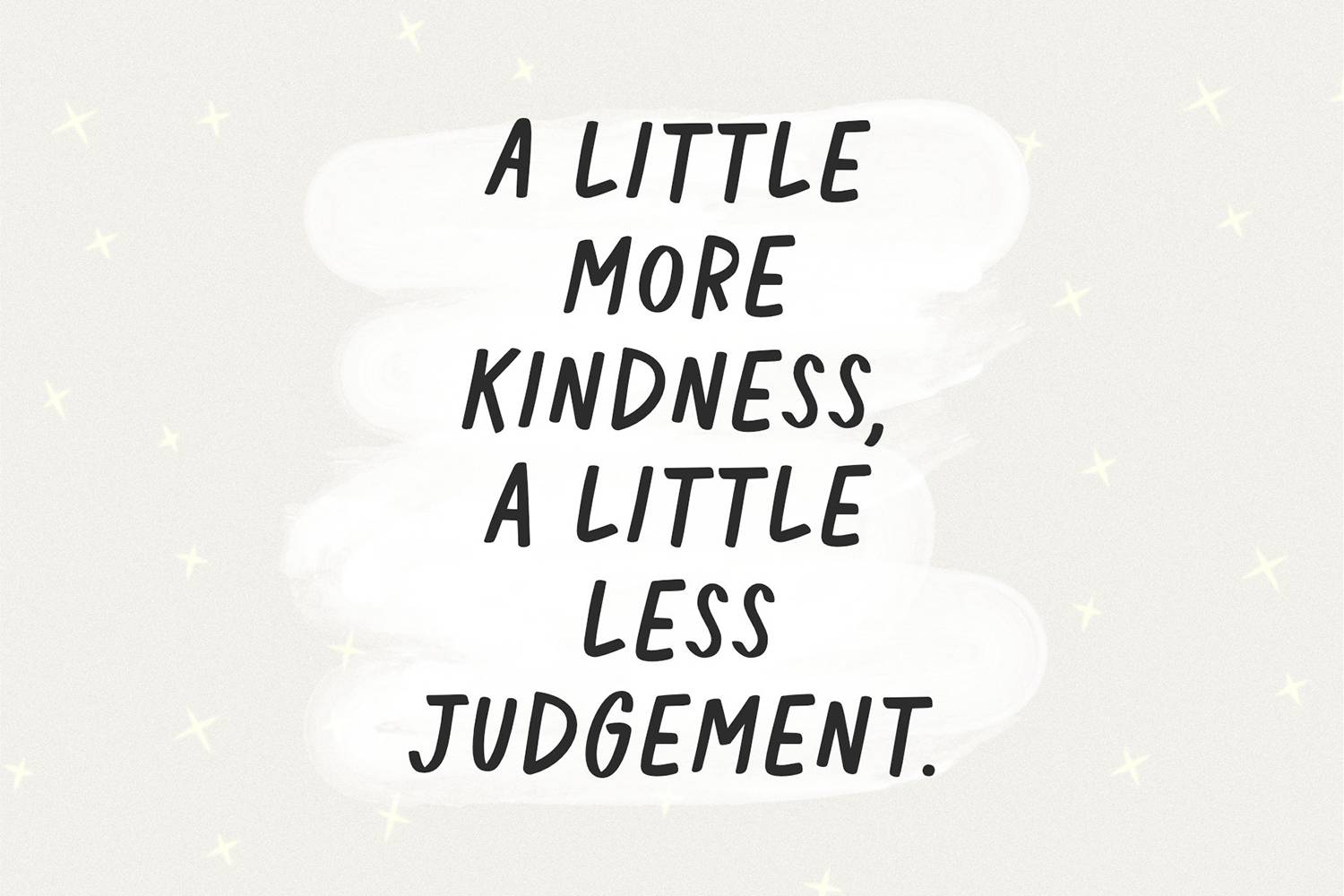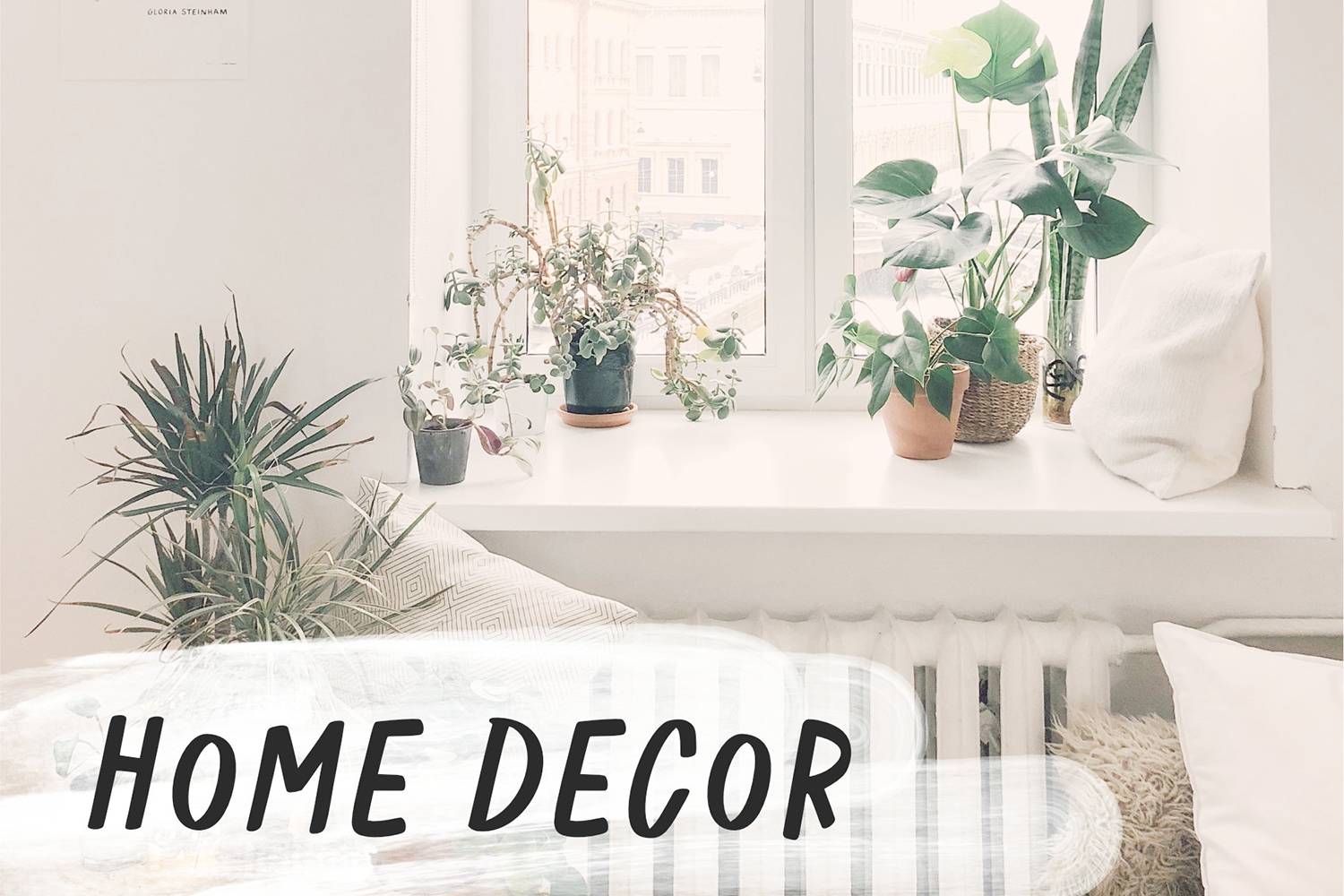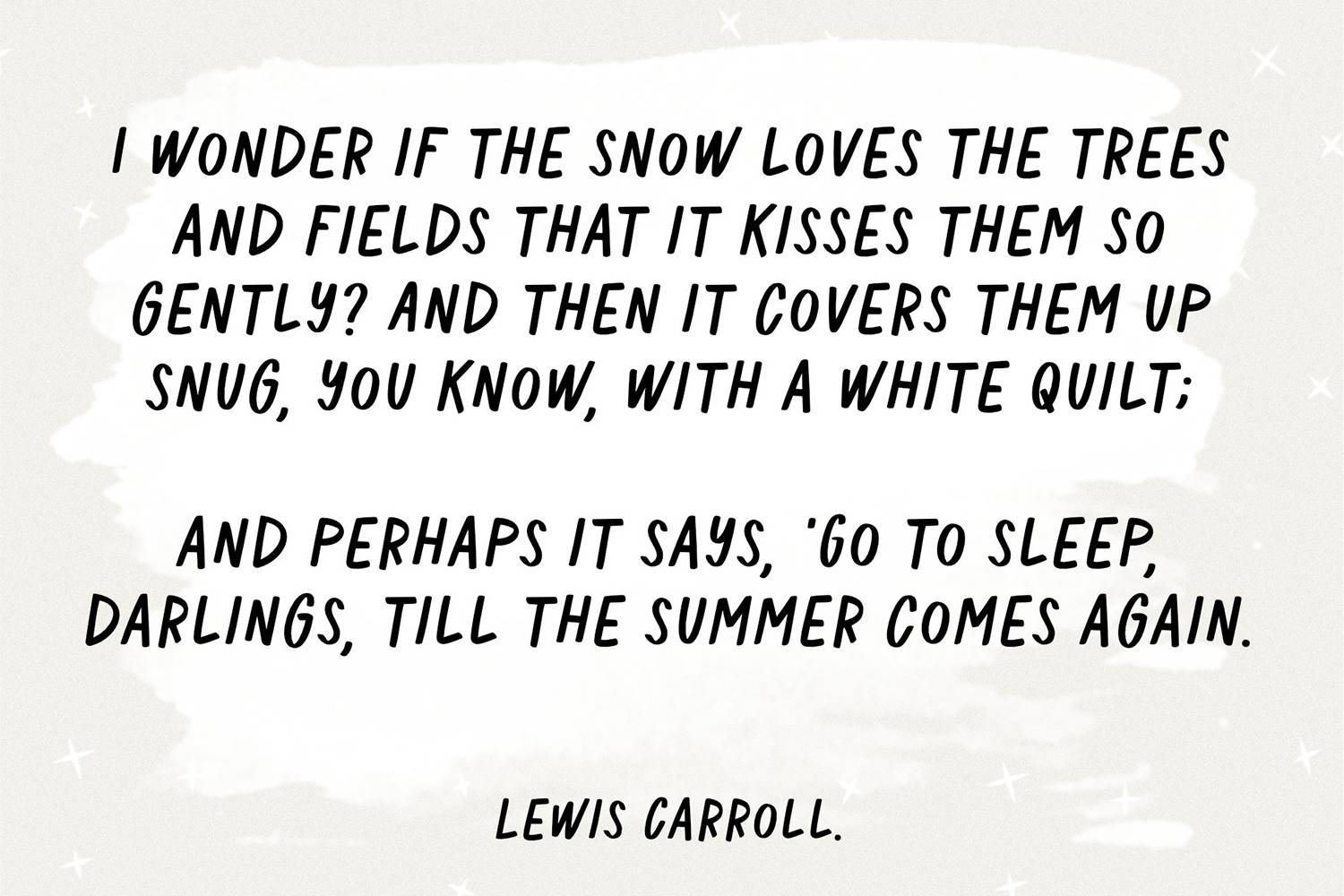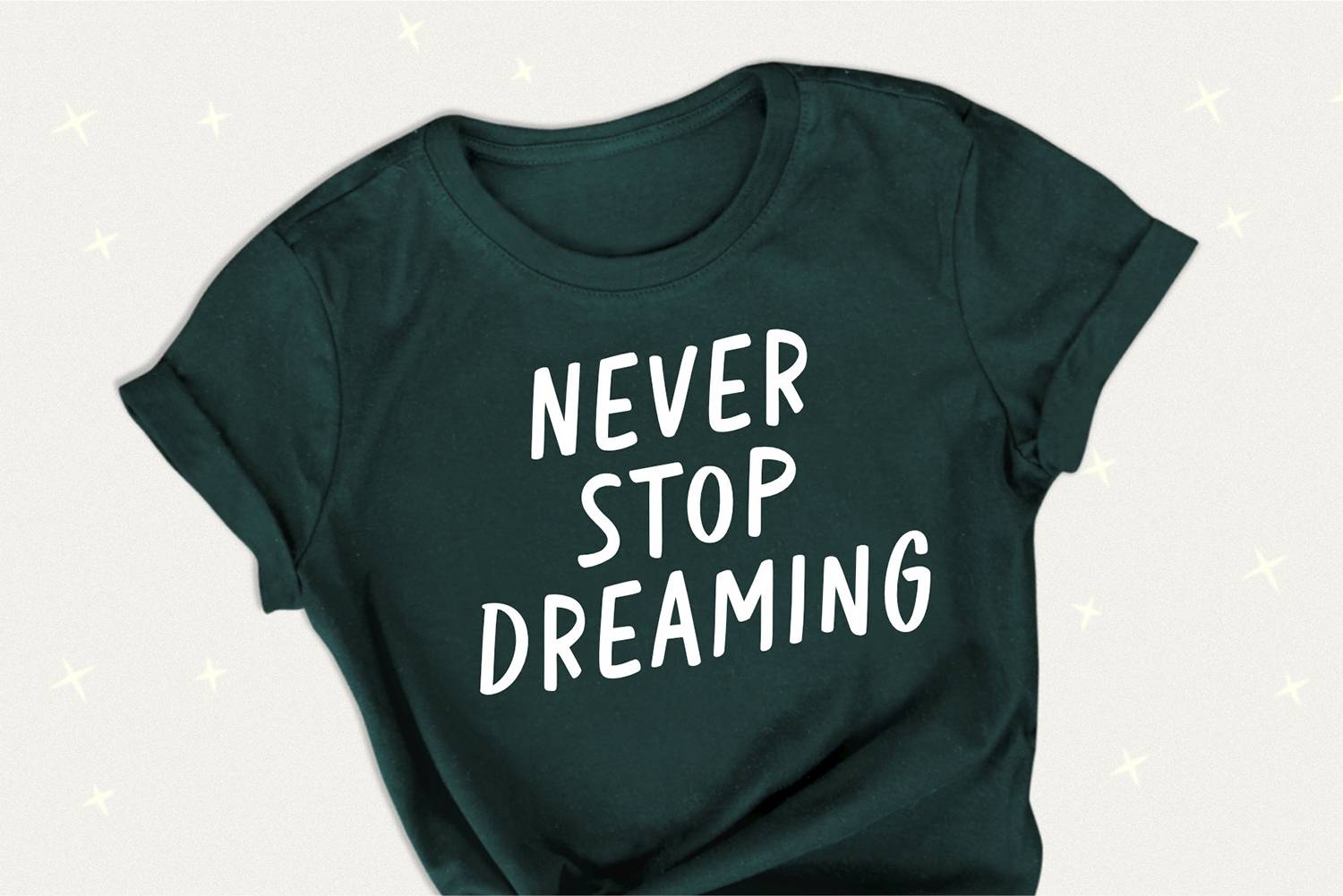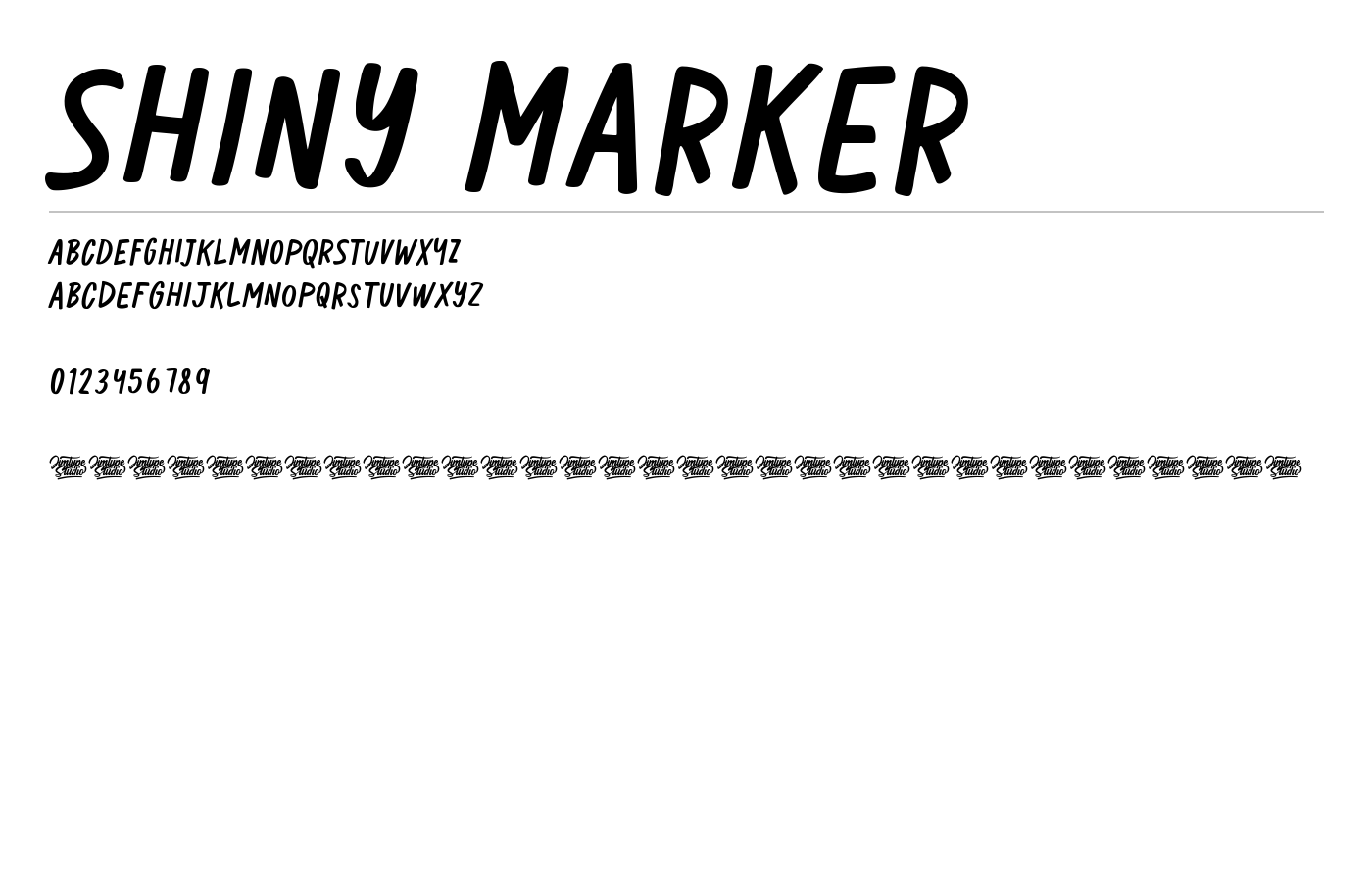
Shiny Marker is a lively sans serif font with a hand-drawn, marker-pen style that feels casual and friendly. Its tall, slightly condensed letterforms with smooth, consistent stroke weight create an approachable look, making it perfect for informal branding, playful headlines, or creative projects that need a personal touch. This font works well where a cheerful and energetic vibe is desired, like in posters, packaging, or social media graphics.
Shiny Marker Font
About Shiny Marker Font
| Font family | Shiny Marker Font |
| Designer | Jimtype Studio |